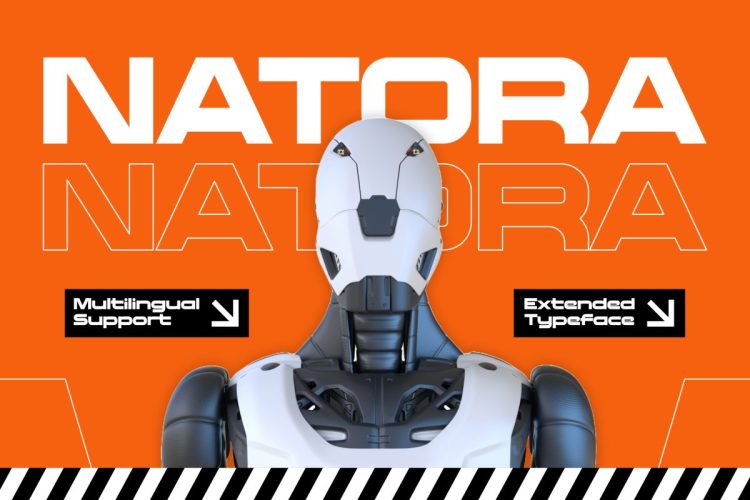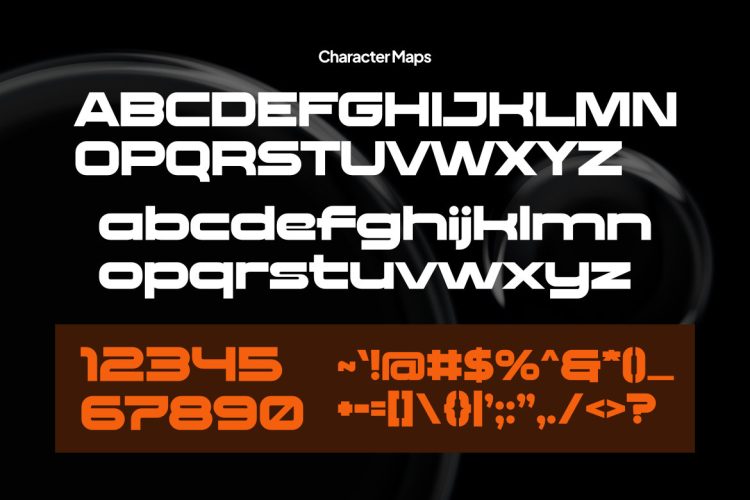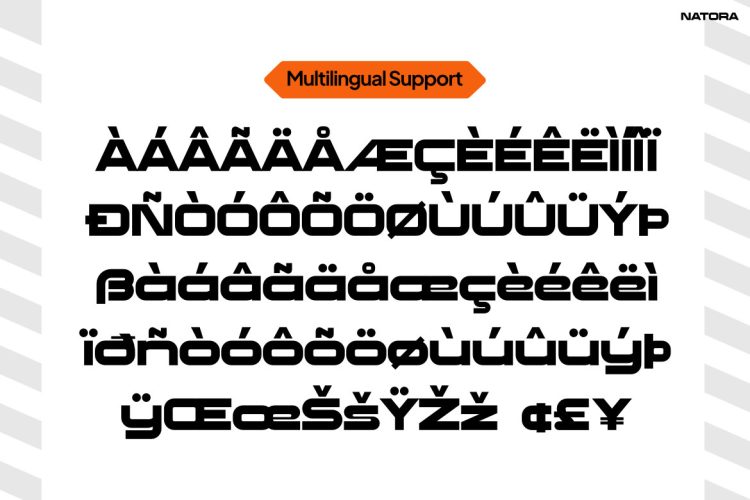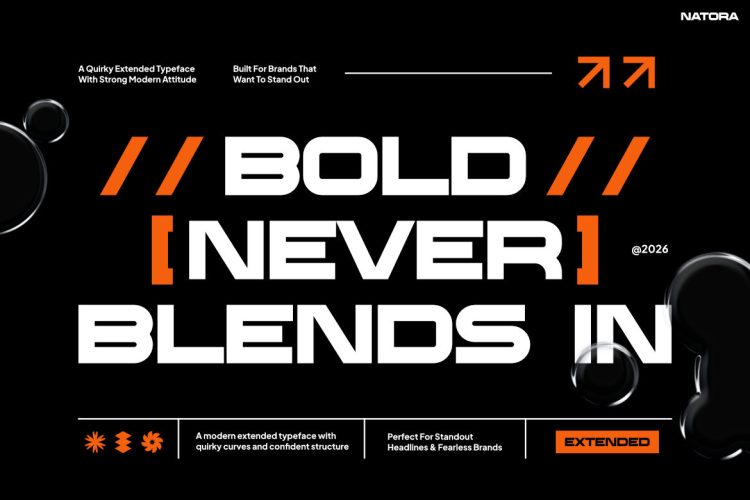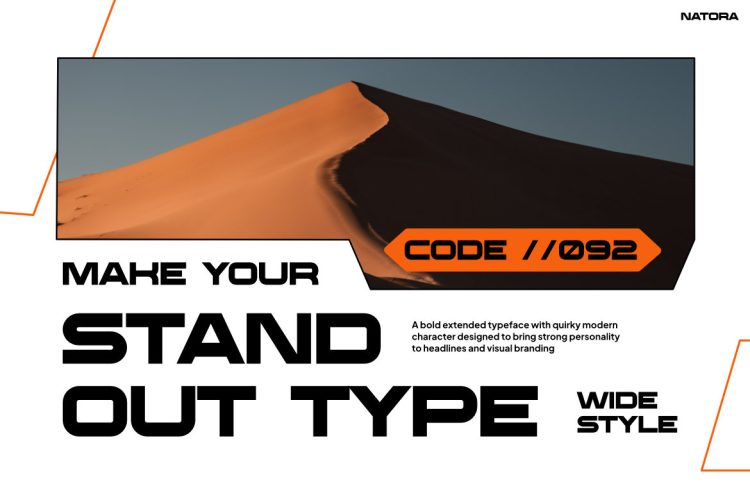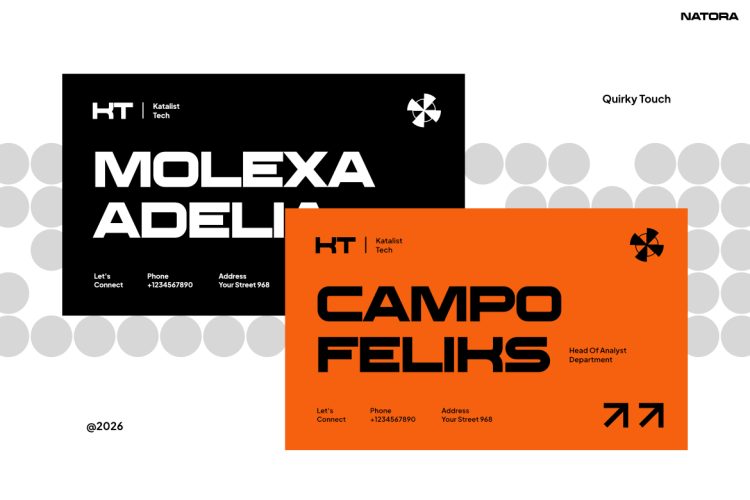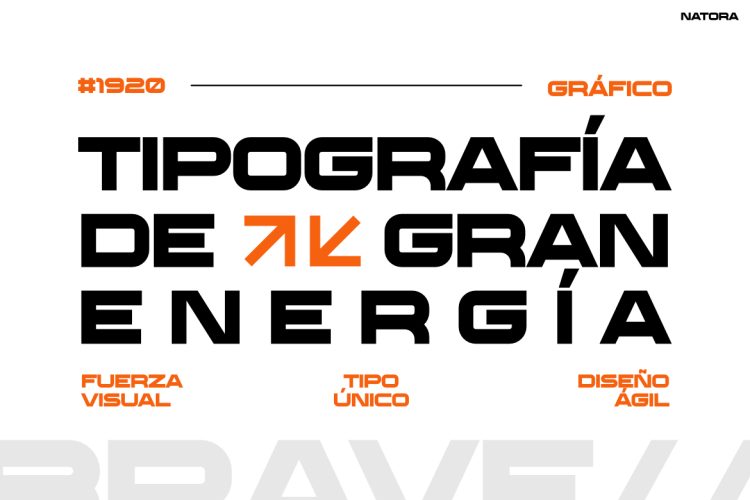
Natora โ Futuristic Power Display Font
Instagram Font NATORA is a bold futuristic display typeface designed to bring strong technological energy into modern typography. Its sharp geometry, wide letterforms, and dynamic structure instantly create a powerful visual presence. Because of its sleek futuristic styling, the font feels modern, innovative, and highly distinctive. As a result, headlines become striking and impossible to ignore. Moreover, the clean structure and balanced spacing keep the typography clear and professional. Instagram Font NATORA perfectly reflects the aesthetic of futuristic technology, cyber culture, and modern digital branding. In addition, the font supports 67 languages, allowing designers to create consistent global designs with a modern and powerful typographic voice.
Instagram Font NATORA combines bold geometric construction with futuristic design details. Each character is crafted with precise lines and wide proportions that give the font a confident and high-tech personality. Therefore, the typography feels strong, modern, and visually impactful.
Furthermore, Instagram Font NATORA performs exceptionally well in projects that require a cutting-edge and futuristic look. For example, it works perfectly for technology branding, gaming graphics, sci-fi posters, digital W, and innovative marketing campaigns. In addition, the bold letterforms make it ideal for headlines, posters, and powerful typographic compositions that need maximum visibility and impact.
Instagram Font NATORA is ideal for graphic designers, tech brands, gaming studios, creative agencies, and digital creators. It works especially well for technology branding, gaming titles, futuristic posters, modern logos, digital interfaces, website headers, and bold social media graphics.